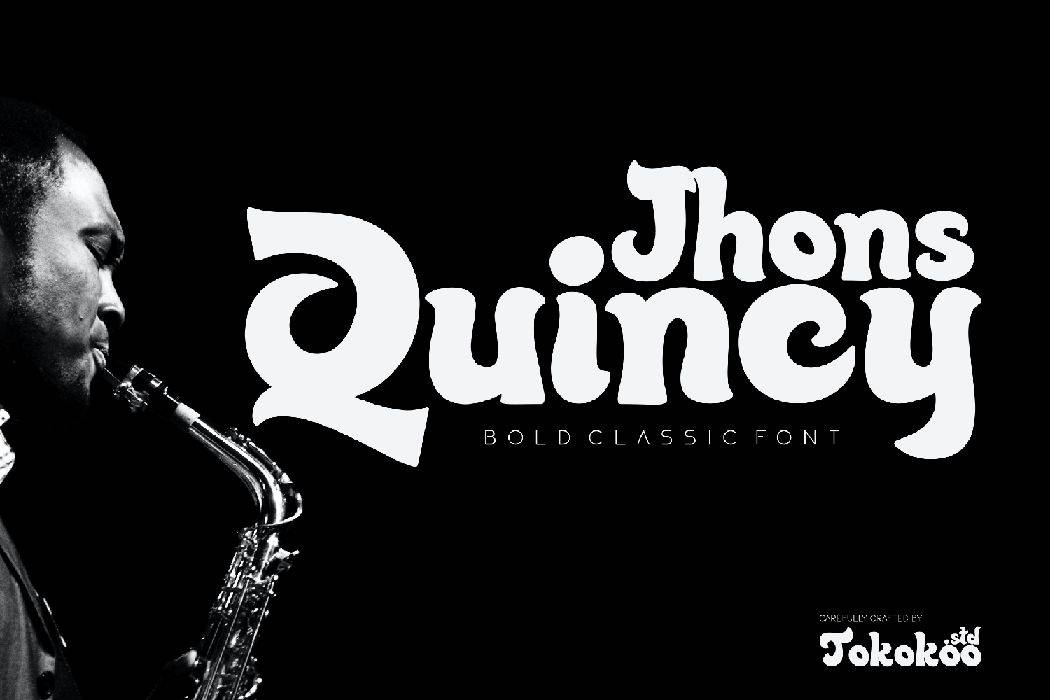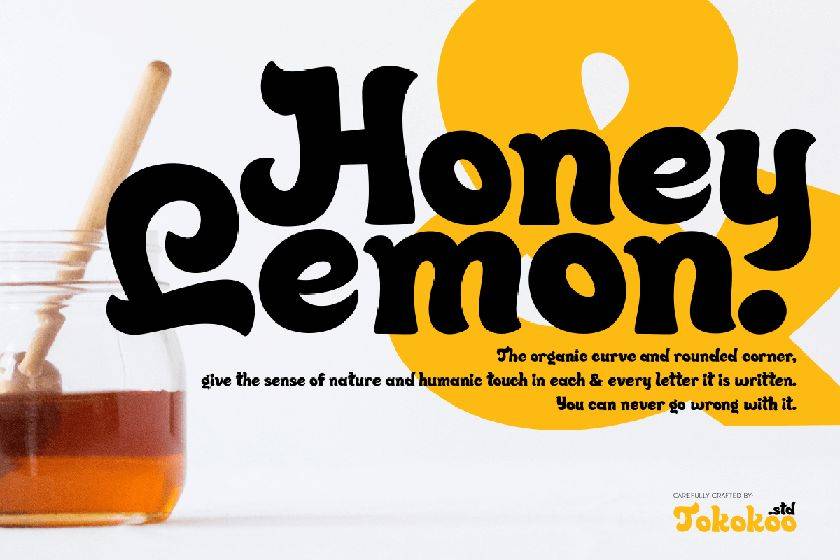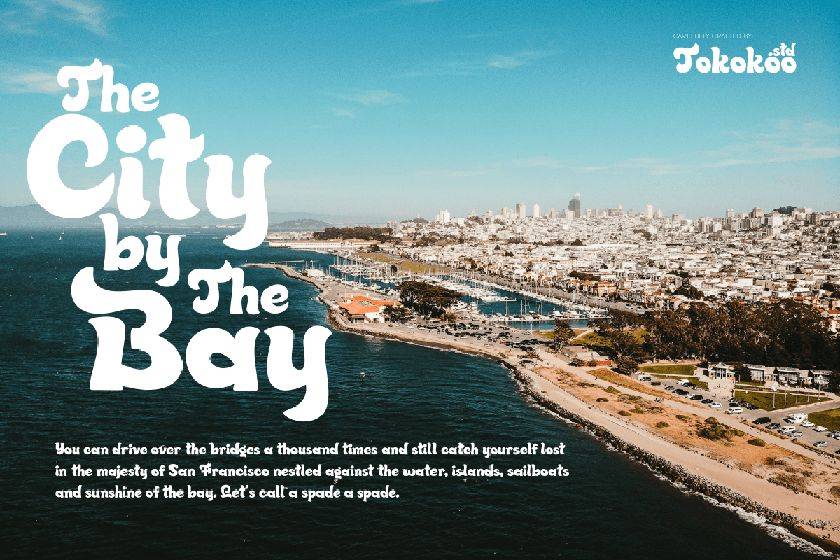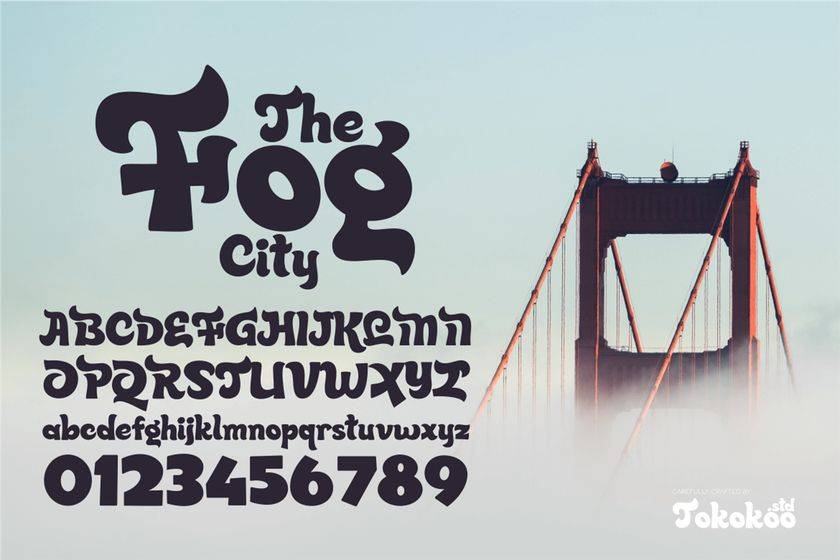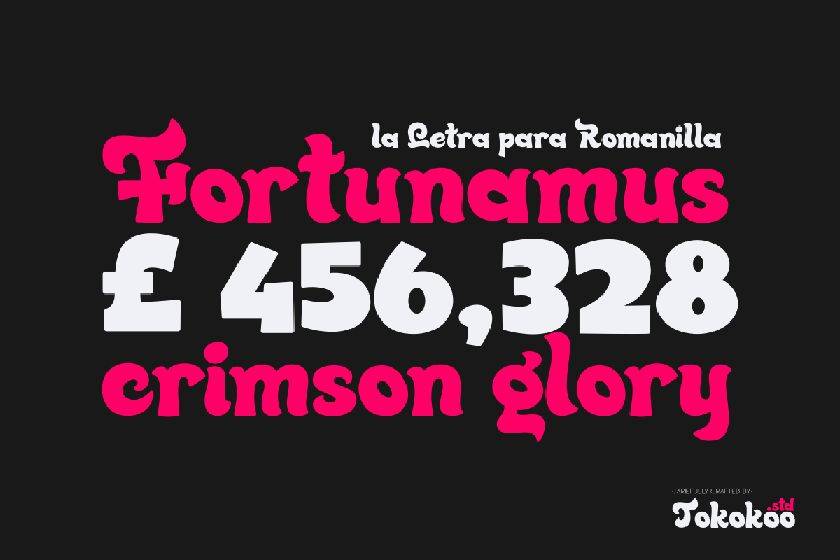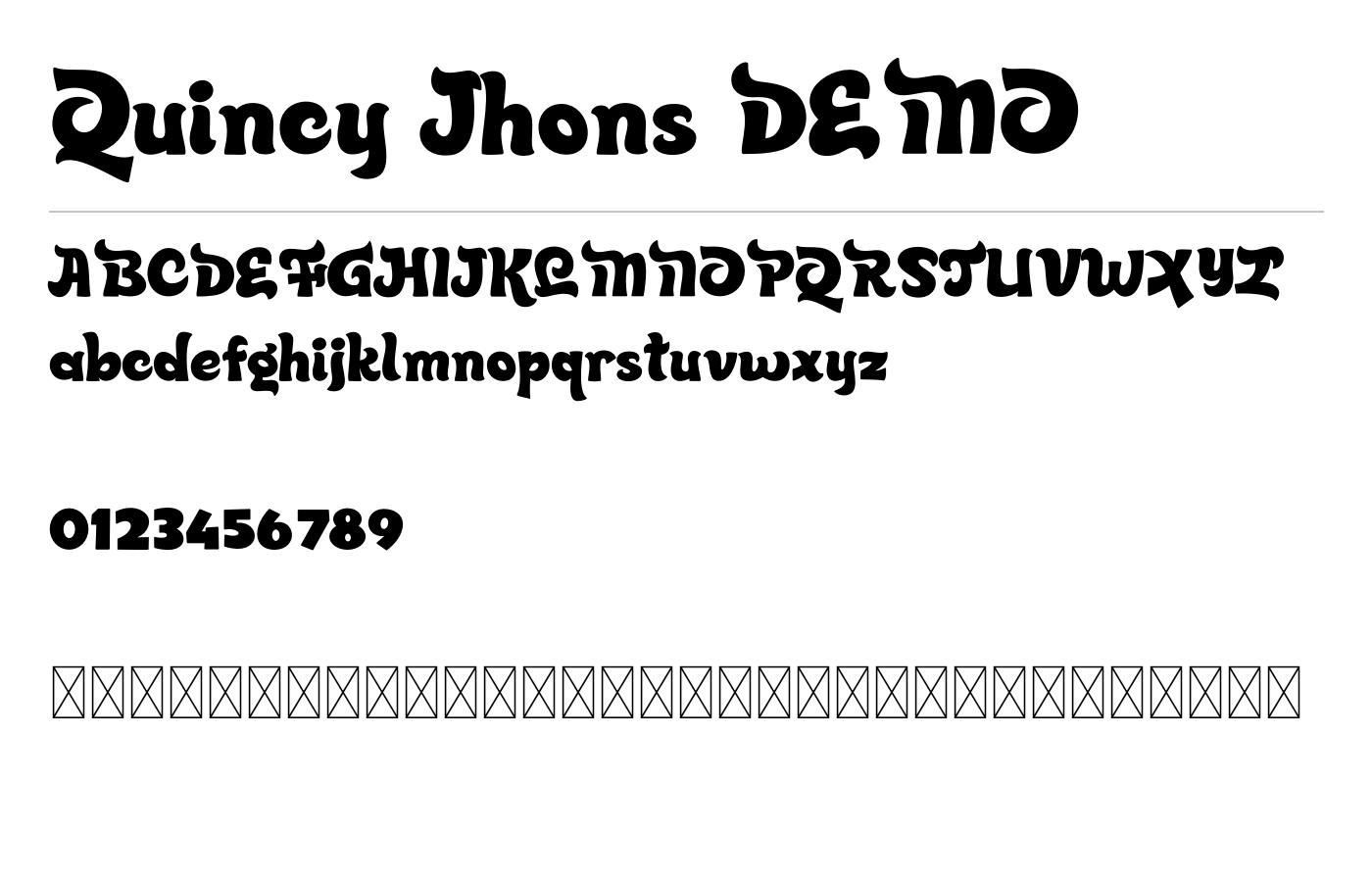
Quincy Jhons is a bold, decorative serif font with playful, almost whimsical letterforms that feature thick strokes and unique, curved serifs. Its strong contrast and quirky shapes give it a vintage yet fun personality, making it ideal for eye-catching headlines, logos, and creative branding projects where a distinctive and lively style is desired. This font works best in display settings where its character and charm can stand out and make a memorable impression.
Quincy Jhons Font
About Quincy Jhons Font